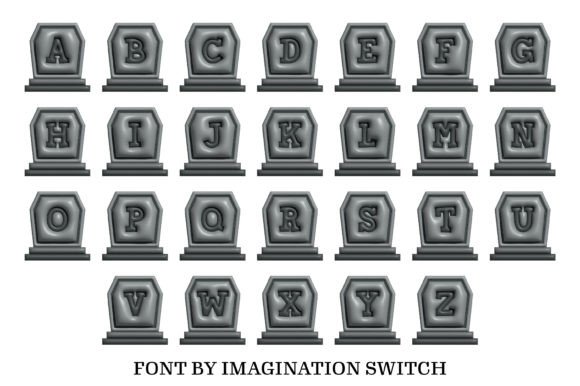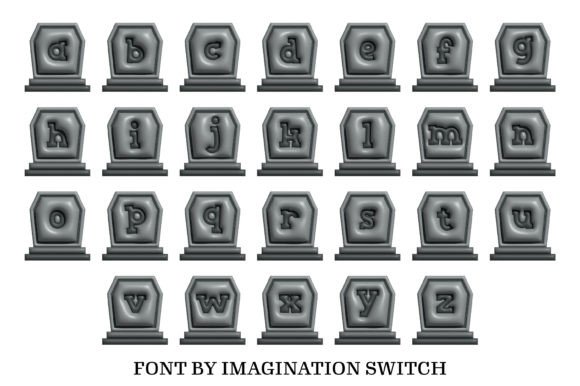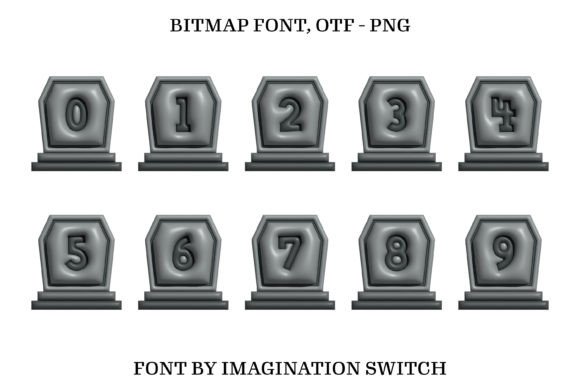
Introduction to Mystic Story Inflated Font
As a designer, have you ever stared at a blank canvas, eager to bring your creative project to life? The spark of inspiration hits, and you start envisioning the perfect typography to match your vision. For many, this moment is the starting point of a beautiful design journey. And when you’re working on a project that demands attention, a font that stands out can be the game-changer you need.
Enter the Mystic Story Inflated Font – a high-quality typographic creation that brings dimension and vitality to each of its characters. With its clever use of color, this font can provide an engaging and dynamic appearance that’s sure to captivate your audience. Whether you’re working on a design project that requires a unique visual sensation or just need a versatile design resource, the Mystic Story Inflated Font is an excellent choice.
One of the best things about this font is its versatility. You can download it for free and use it on a transparent background, giving you complete creative control over your design. Its 3D style creates an illusion of depth in the text, making it perfect for designers who want to add an extra layer of visual interest to their work.
Key Features of Mystic Story Inflated Font
- High-quality design resource ideal for creative projects requiring a mystical touch.
- Unique inflated font design with a transparent background, allowing for seamless integration with various backgrounds.
- Perfect for use in digital designs, such as logos, typography, and graphics, where a creative and mystical feel is desired.
Honest Review: Mystic Story Inflated Font
I recently stumbled upon the Mystic Story Inflated Font and I must say it’s been a game-changer for my creative projects. This font is perfect for anyone looking to add a touch of mysticism to their design.
What works well: ✨ The font is highly customizable and comes in a variety of styles, making it suitable for a range of design applications. It also has a transparent background, which is great for designers who want to create a sense of depth in their designs.
- High quality: The font is well-designed and has a professional finish, making it perfect for high-end design projects.
- Design resource: The font is a great addition to any designer’s toolkit, and its versatility makes it a valuable resource for creative projects.
Limitations: ⚠️ The font may not be suitable for all design applications, particularly those that require a more straightforward, sans-serif font.
Overall, I’m thoroughly impressed with the Mystic Story Inflated Font. It’s a fantastic resource for designers looking to add a touch of mysticism to their work, and its high-quality design makes it a valuable addition to any toolkit.
The Mystic Story Inflated Font is ideal for use in creative projects, such as logos, brochures, and social media graphics. It’s also a great choice for designers looking for a unique and eye-catching font for their next project.